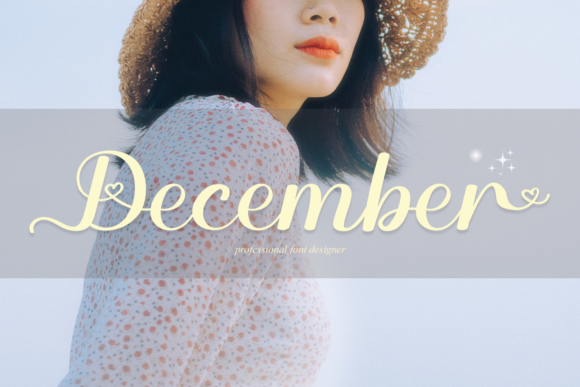
The Magic of December Font: Elevate Your Designs with Elegance
I’ll never forget the time I was working on a wedding invitation project, and my client asked for a font that exuded elegance and sophistication. I scoured the internet, tried countless fonts, but nothing seemed quite right. That was until I stumbled upon December Font. Its flowing script and ravishing style instantly captured my attention, and I knew I had found the perfect fit. In this article, I’ll share my love for December Font, its features, and how to make the most of it in your designs.
A Personal Review of December Font
- ✨ Elegant and flowing script style that’s perfect for wedding invitations, stationery, and social media posts.
- ✅ Highly legible, even at smaller font sizes.
- 💫 Features OpenType glyphs and stylistic alternates, giving you plenty of creative options.
- 🎨 Versatile and works well with a variety of design styles, from modern to vintage.
While December Font is an excellent choice, there are a few things to keep in mind:
- ⚠️ Some users may find the font a bit too ornate for certain projects, such as body text or captions.
- 🤔 Limited availability of certain characters, such as ligatures or special symbols.
A Practical Guide to Using December Font
- Experiment with OpenType features, such as glyphs and stylistic alternates, to add visual interest to your design.
The Story Behind December Font
December Font was designed by a talented typographer who wanted to create a font that captured the elegance and sophistication of the holiday season. Inspired by traditional calligraphy and script fonts, December Font was crafted to be both beautiful and versatile.
| Font Name | December Font |
| Author | erik studio |
Q: What type of projects is December Font best suited for?
A: December Font is perfect for wedding invitations, stationery, social media posts, and any project that requires an elegant, script font.
Q: Does December Font support OpenType features?
A: Yes, December Font features OpenType glyphs and stylistic alternates, allowing you to add visual interest to your designs.